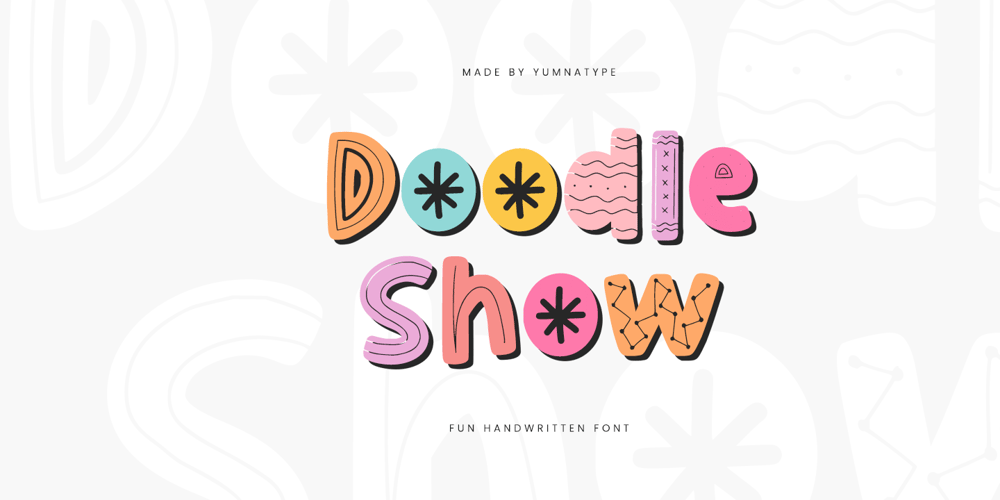
Doodle Show
Doodle Show font
Doodle Show Font Family was designed by Donis Miftahudin and published by Yumna Type. Doodle Show contains 1 styles and family package options. Doodle Show is a whimsical handwritten font that brings a playful touch to your designs. Crafted with a fun style this font captures the essence of imagination. The doodle elements add a sense of whimsy and delight to your text. From hearts and stars to arrows and swirls, these charming details enhance the font’s overall aesthetic and bring your designs to life.With its rounded shapes and consistent letter proportions, Doodle Show exudes a sense of warmth and approachability. Each letter is meticulously crafted to maintain a harmonious balance between playful doodles and legible text, ensuring clarity and readability in any design application. In addition, enjoy the features here.Features: Multilingual Supports PUA Encoded Numerals and Punctuations Doodle Show fits in headlines, logos, posters, flyers, branding materials, greeting cards, print media, editorial layouts, and many more designs. Find out more ways to use this font by taking a look at the font preview.Thanks for purchasing our fonts. Hopefully, you have a great time using our font. Feel free to contact us anytime for further information or when you have trouble with the font. Thanks a lot and happy designing.